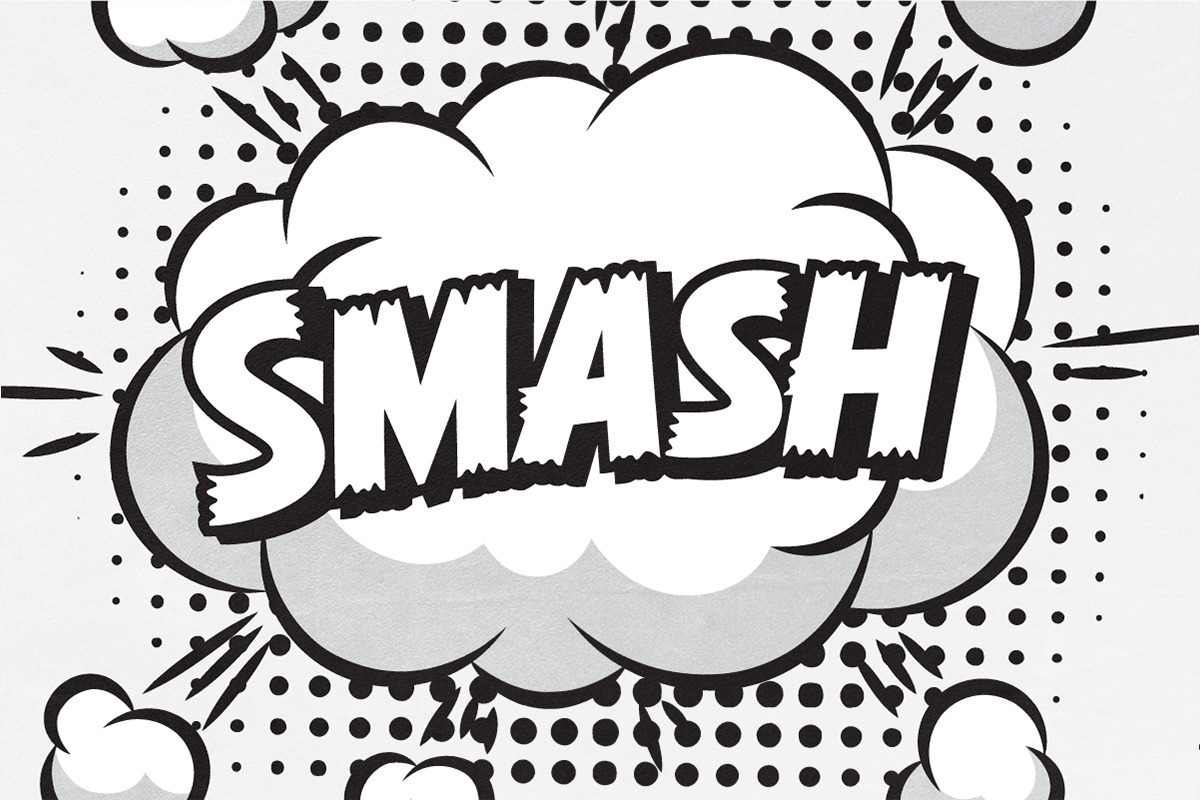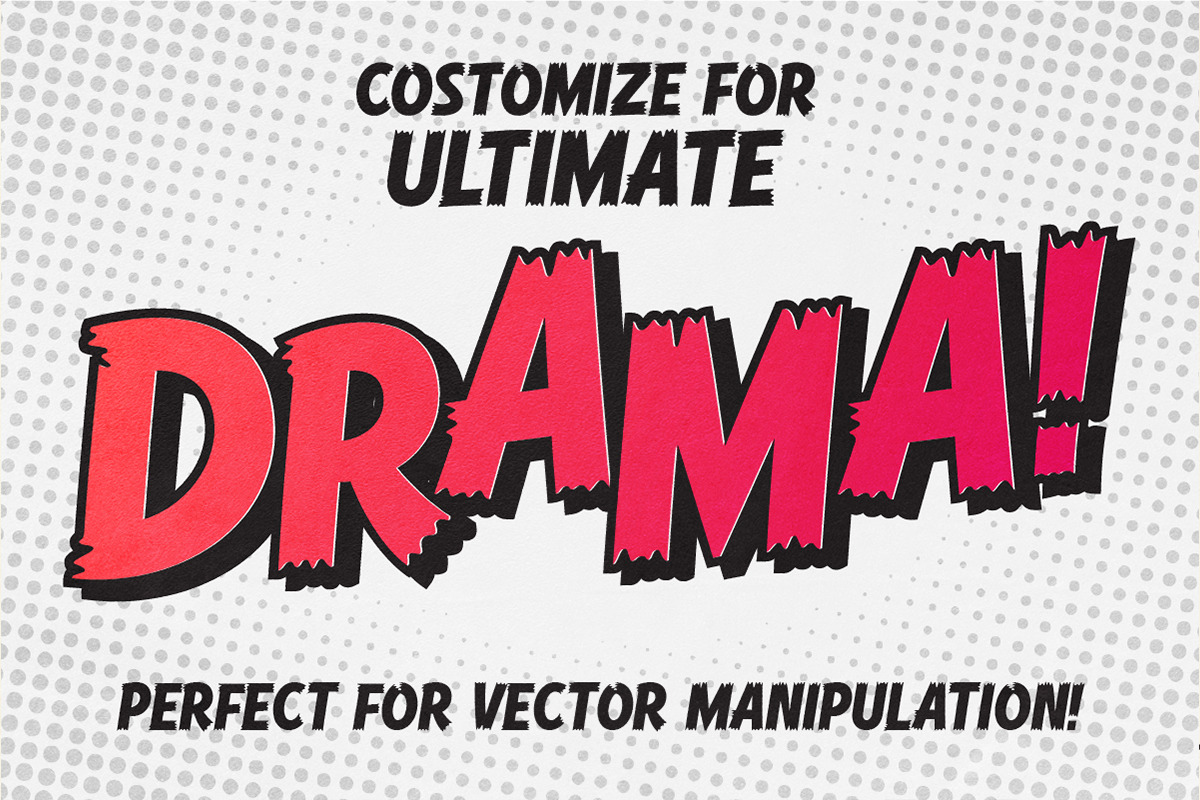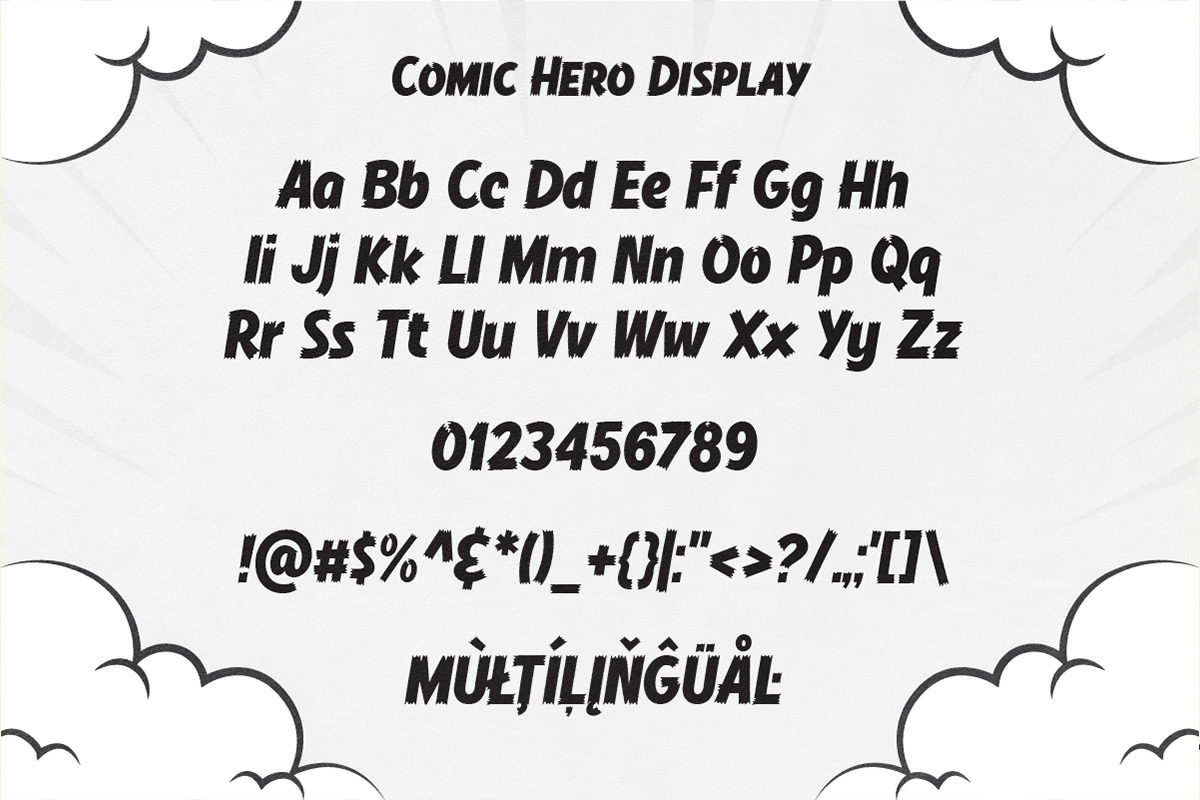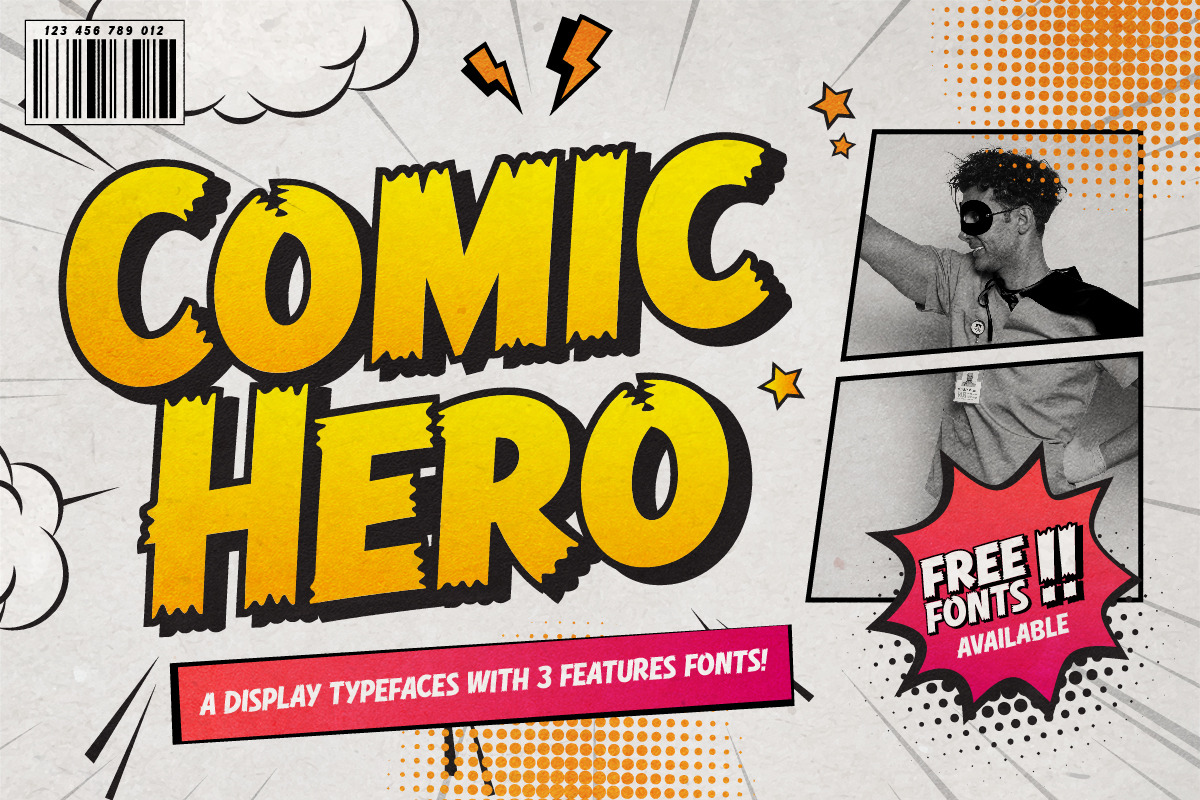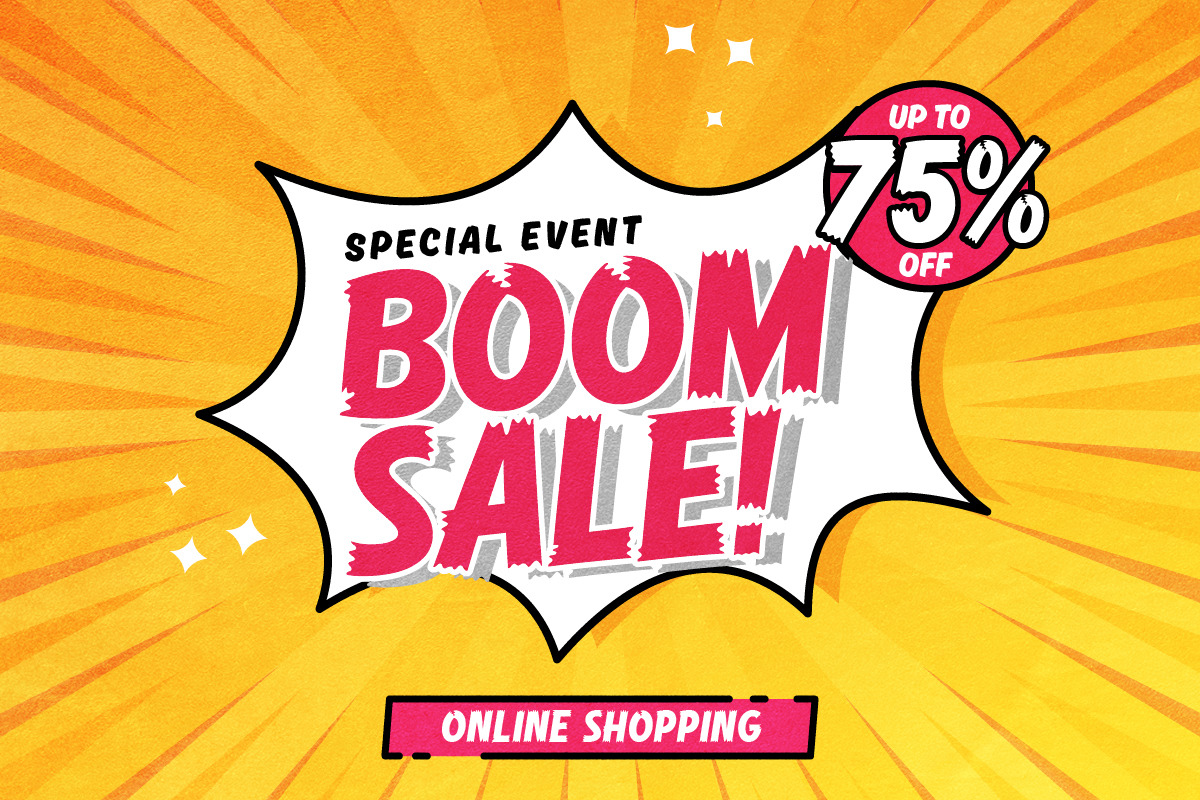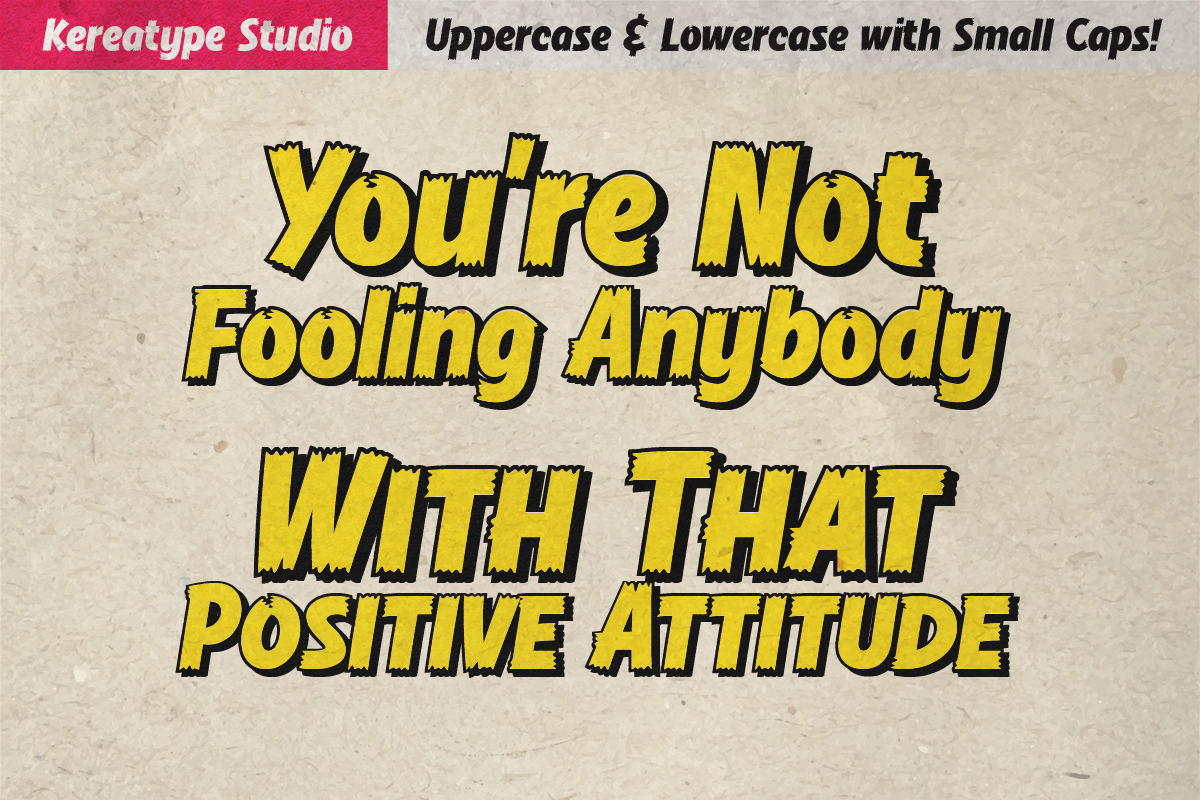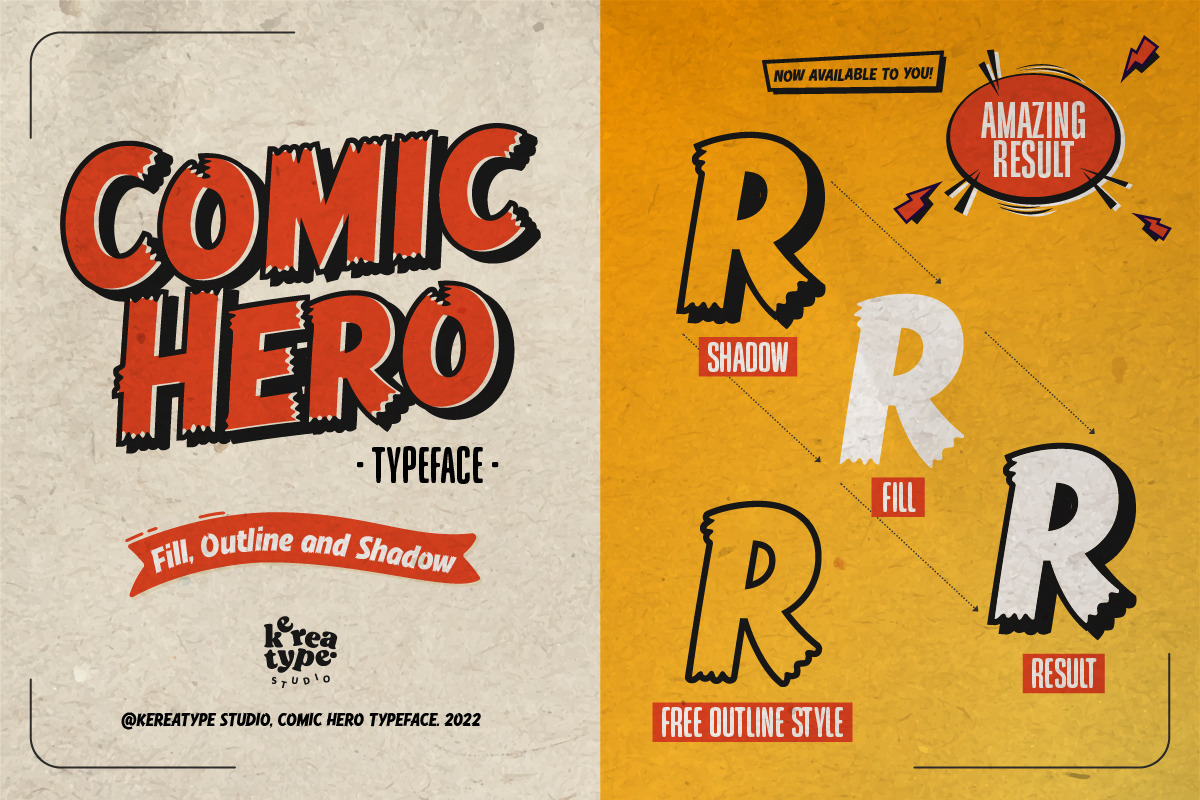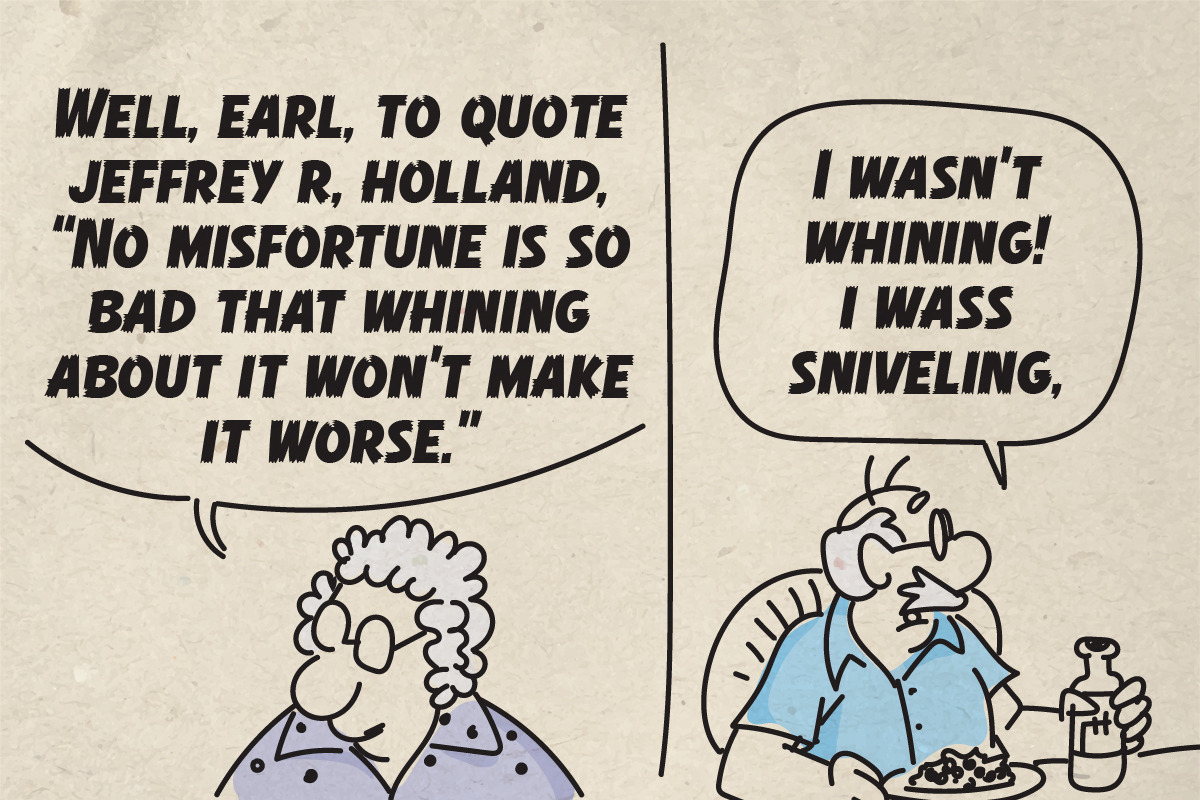
Comic Hero - Cartoon Typeface
Comic Hero is a bold, dynamic display font inspired by the electrifying world of vintage comics and heroic pop art culture. With its bold outlines, energetic strokes, and explosive character, Comic Hero is perfect for comic book titles, children’s products, merchandise, and loud promotional visuals.
Channeling the classic spirit of superhero adventures and action-packed storytelling, Comic Hero instantly commands attention with its powerful presence. The font’s vibrant and layered construction features Fill, Outline, and Shadow styles, which evoke a sense of fun, drama, and movement that leaps off the page like a comic panel in motion.
Comic Hero works great for comic-inspired branding, toy packaging, posters, t-shirt designs, editorial headlines, party invitations, YouTube thumbnails, and retro pop designs. Its flexible layering system and cartoon-style boldness offer maximum impact, especially when customized with vibrant colors and halftone effects.